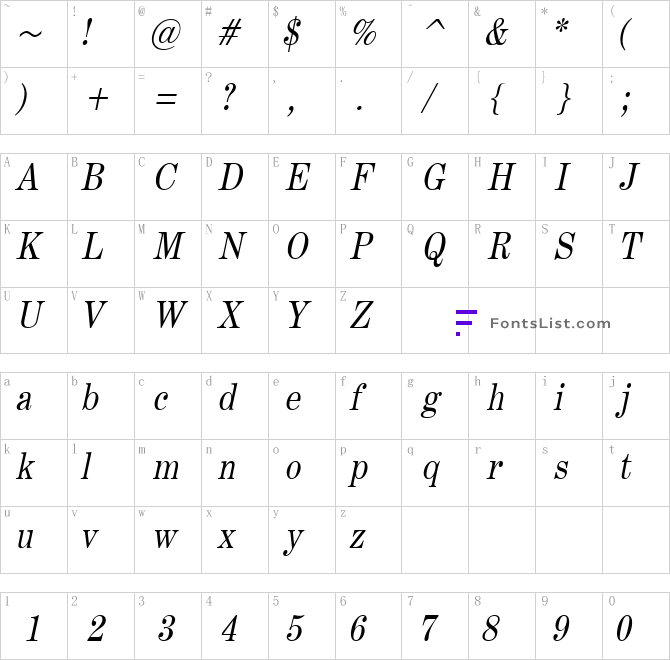
Annual-Condensed-Italic.ttf is a very beautiful artistic font, Annual-Condensed-Italic.ttf is widely used in the design and printing of various books and pictures,Annual-Condensed-Italic.ttf has a strong visual impact,Annual-Condensed-Italic.ttf is a commonly used font in newspapers, magazines and books, and is used in posters, e-commerce Poster design, store design, logo design, font design and other fields.Annual-Condensed-Italic.